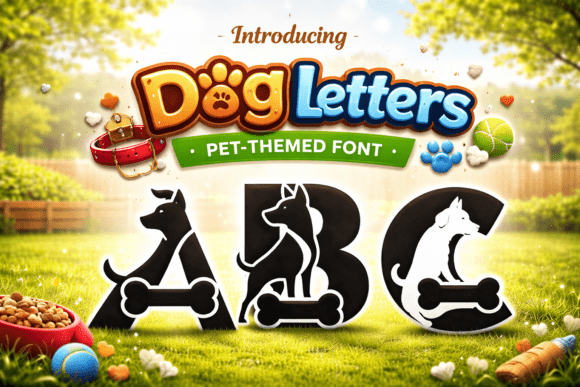
Unleash Your Creativity with Dog Letters Font: A Playful and Fun Typography Design
Are you a dog lover, designer, or crafter looking for a unique and engaging font to add a personal touch to your projects? Look no further than the Dog Letters Font, a playful and fun typography design that features bold ABC letters with dog silhouettes and bone shapes. This colorful pet font showcase is perfect for pet branding concepts, kids’ friendly designs, and dog lover artwork.
What is Dog Letters Font?
Dog Letters Font is a cartoon-style typography design that combines bold and colorful letters with dog-themed illustrations. Each letter of the alphabet features a unique dog silhouette or bone shape, making it a fun and creative way to add a personal touch to your designs. The font is perfect for a variety of projects, including pet branding, kids’ party invitations, dog-themed crafts, and more.
Key Features of Dog Letters Font
- Bold and Colorful Design: The Dog Letters Font features bold and colorful letters that are sure to grab attention.
- Dog Silhouettes and Bone Shapes: Each letter of the alphabet features a unique dog silhouette or bone shape, adding a fun and playful touch to your designs.
- Cartoon-Style Typography: The font features a cartoon-style typography design that is perfect for kids’ friendly designs and pet branding concepts.
- Bright Sky Background: The font is set against a bright sky background, adding a cheerful and uplifting feel to your designs.
Uses for Dog Letters Font
The Dog Letters Font is perfect for a variety of projects, including:
- Pet Branding: Use the font to create custom logos, business cards, and packaging for pet-related businesses.
- Kids’ Party Invitations: Create fun and engaging party invitations for kids’ dog-themed parties.
- Dog-Themed Crafts: Use the font to create custom dog-themed crafts, such as signs, banners, and decorations.
- Dog Lover Artwork: Create custom artwork, such as prints, posters, and canvases, featuring the Dog Letters Font.
Benefits of Using Dog Letters Font
Using the Dog Letters Font offers a range of benefits, including:
- Unique and Creative Design: The font features a unique and creative design that is sure to stand out.
- Kids’ Friendly: The font is perfect for kids’ friendly designs and is sure to appeal to kids of all ages.
- Customizable: The font can be customized to fit your specific design needs.